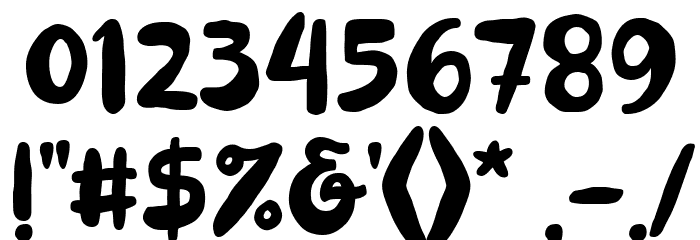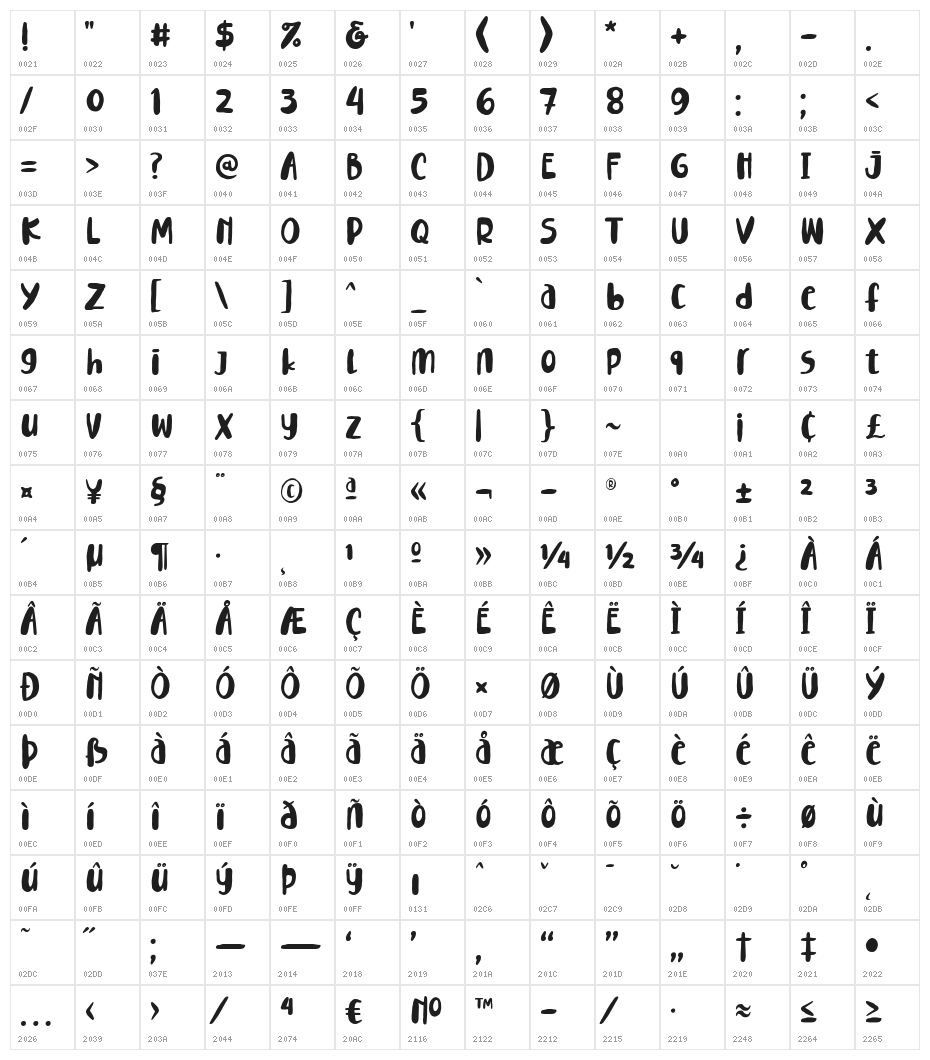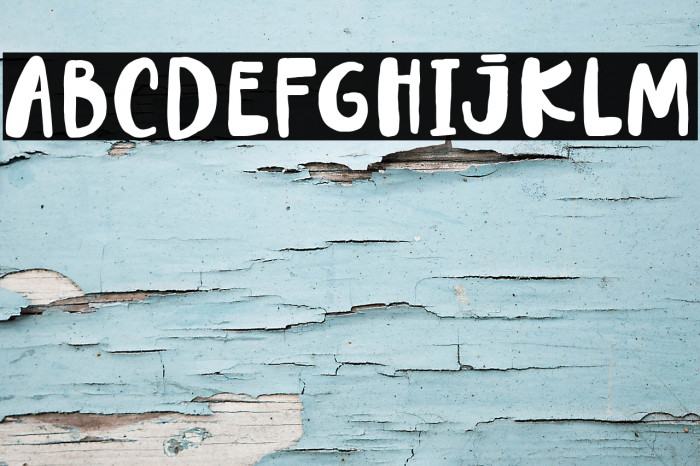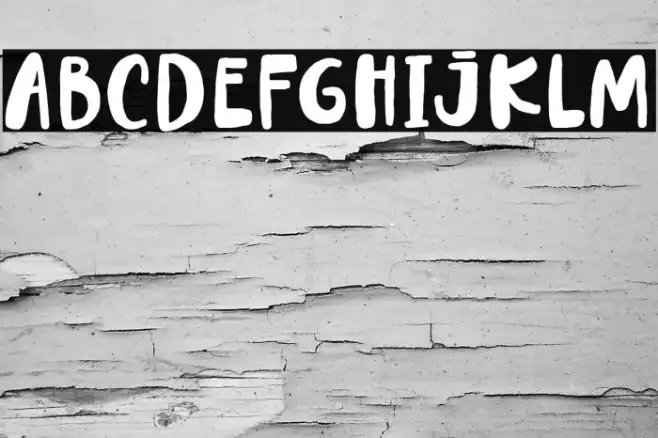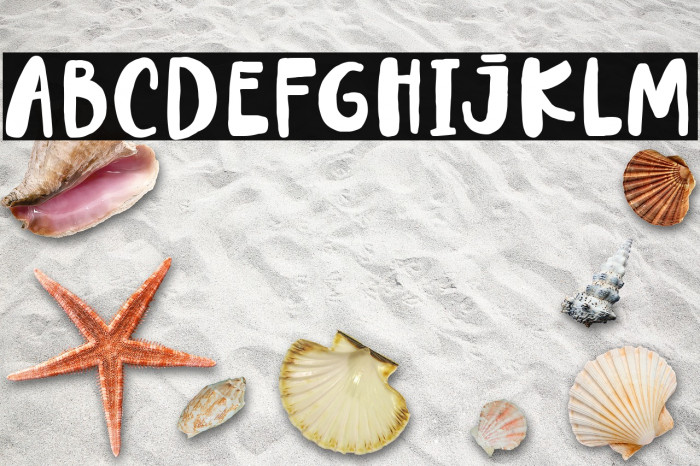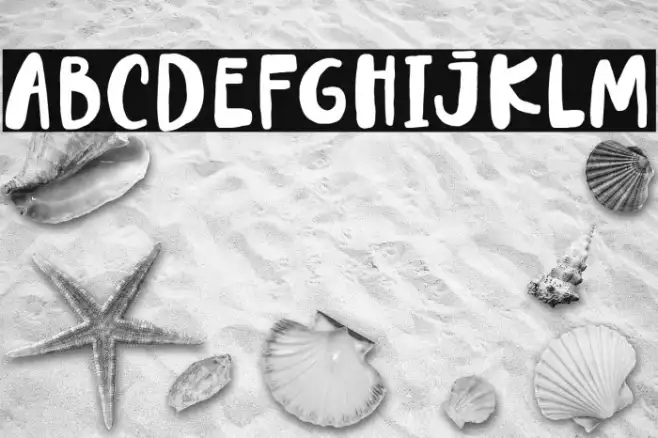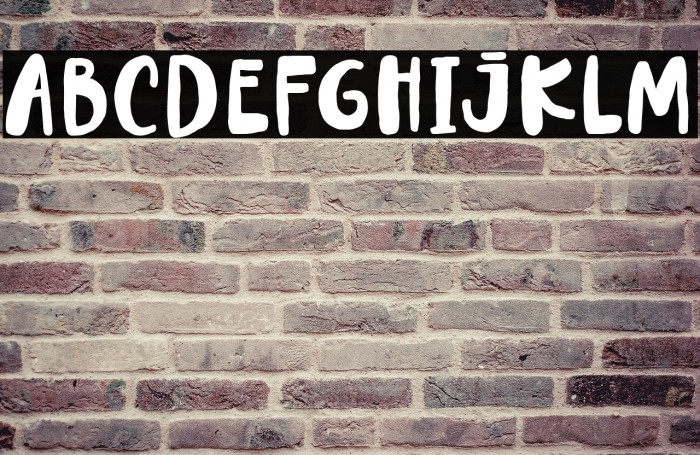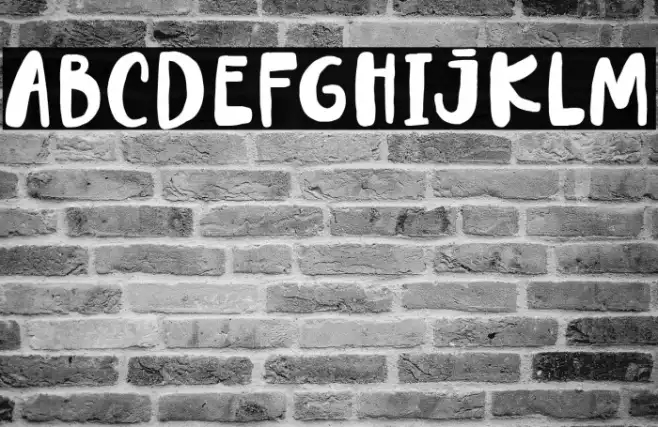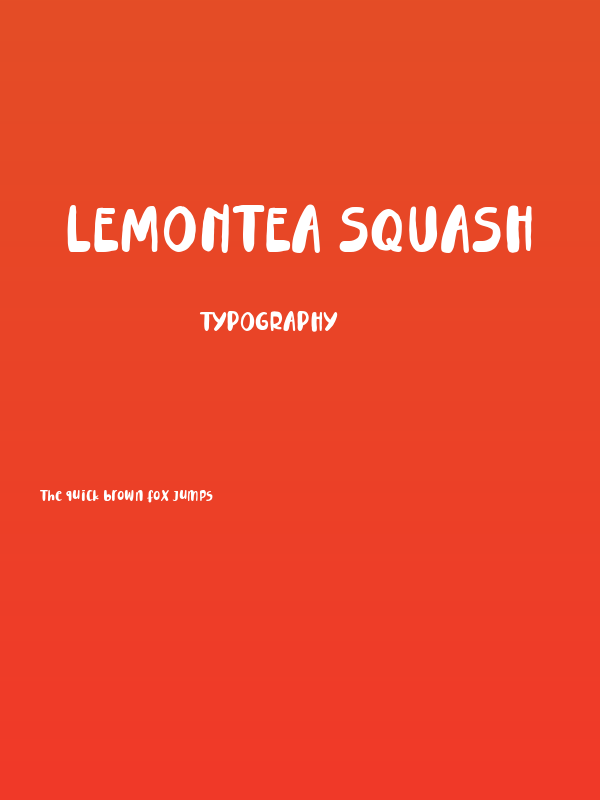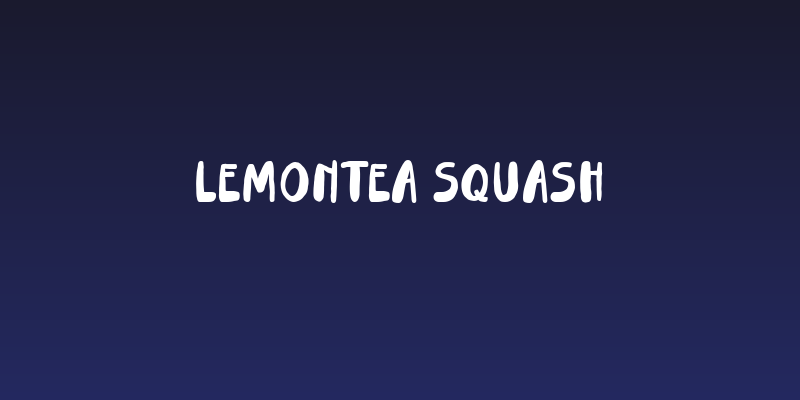
Lemontea Squash Font
Lemontea Squash Description
This font features a playful and bold design with a hand-drawn aesthetic. The characters are rounded and slightly irregular, giving them a whimsical and friendly appearance. The uppercase and lowercase letters maintain a consistent style, with a noticeable thickness that adds to the font's boldness. The numbers and special characters are equally expressive, maintaining the same playful style. The overall look is informal and artistic, making it suitable for creative and fun projects.
| Proposed Projects | Ideal for children's books, playful branding, creative posters, and informal invitations. |